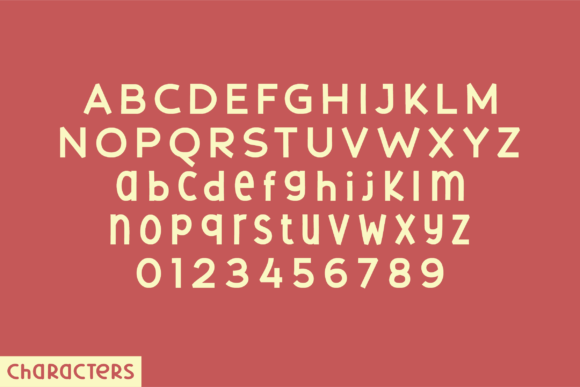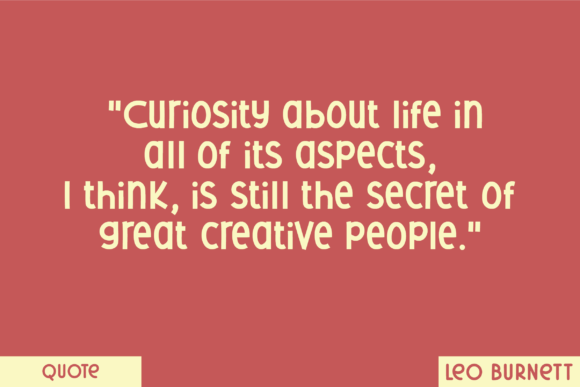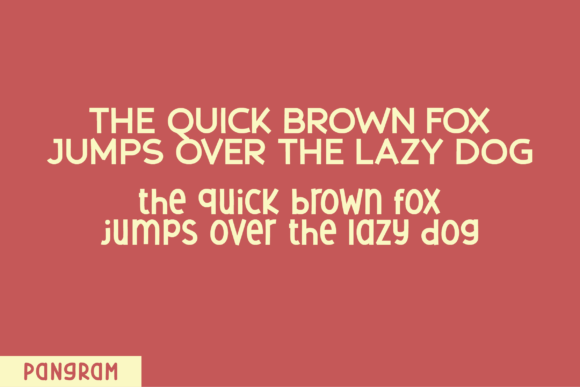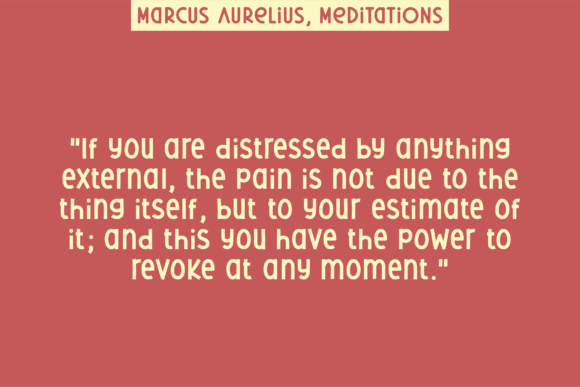
The Designer’s Delight: Exploring the Unique Fiorentina Font
I still remember the frustration of working on a project, hours spent searching for the perfect font, only to end up with something that just didn’t feel right. My client wanted a quote design that was both modern and elegant, but I was struggling to find a font that fit the bill. That’s when I stumbled upon Fiorentina, a natural sans serif font that has since become a staple in my design toolkit.
Fiorentina is more than just a pretty face – it’s a versatile font that’s perfect for a wide range of design projects. Here’s what I love about it:
- ✨ Unique character indentation: Fiorentina’s natural sans serif design is created without changing a single node in each character’s indentation, making it truly one-of-a-kind.
- ✅ Clean and modern look: The font’s sleek lines and minimalist aesthetic make it perfect for quotes, notes, tees, and any product design.
- 💡 Highly legible: Fiorentina is easy to read, even at small sizes, making it ideal for body text or captions.
Of course, no font is perfect, and Fiorentina does have a few quirks:
- 🤔 Limited language support: While Fiorentina supports many languages, it may not be the best choice for projects that require extensive language support.
- ⚠️ Occasional kerning issues: As with any font, you may encounter some kerning issues, especially when using Fiorentina at larger sizes.
The Story Behind Fiorentina
Fiorentina was designed with the goal of creating a unique and versatile font that could be used in a wide range of design projects. The font’s creator was inspired by the clean lines and minimalist aesthetic of modern design, and sought to create a font that was both elegant and highly legible.
| Q: Is Fiorentina suitable for body text? | A: Yes, Fiorentina is highly legible and can be used for body text, especially at larger sizes. |